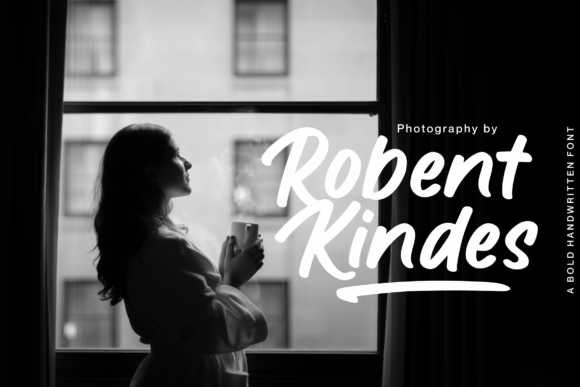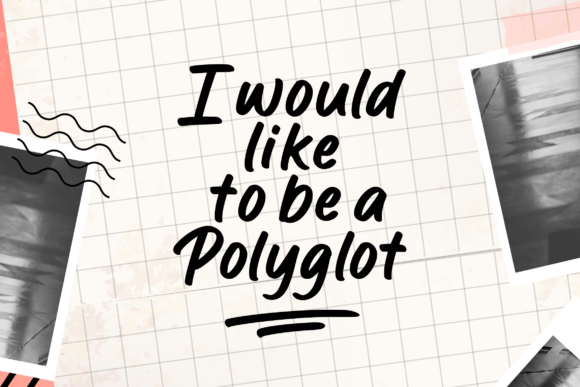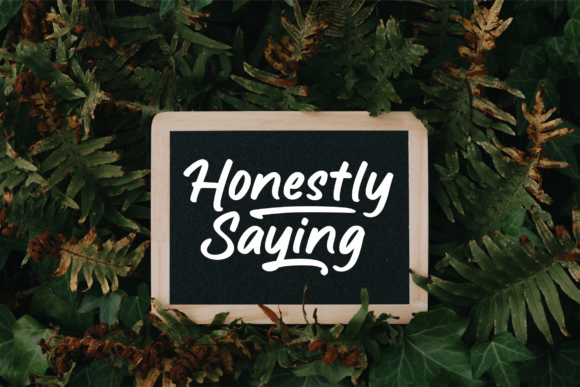
Introduction to Greathy Font
Greathy is an exquisite handwritten font, masterfully designed to become a true favorite.
It maintains its classy calligraphic influences while feeling contemporary and fresh Greathy is PUA encoded which means you can access all of the amazing glyphs and ligatures with ease.
Greathy Font offers exceptional quality and versatility, making it a valuable addition to your design toolkit. Whether you’re creating for personal projects or commercial use, Greathy Font delivers professional results.